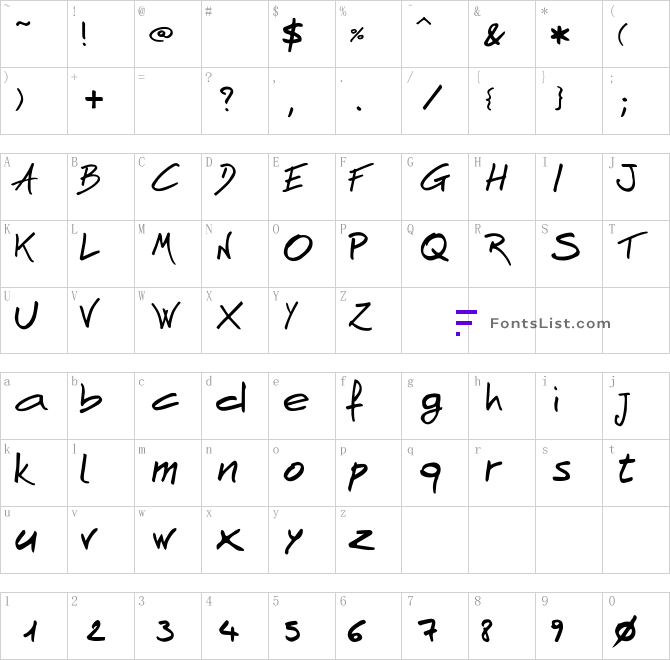
- Font Name:AndNow Hand
AndNow-Hand.ttf is a very beautiful artistic font, AndNow-Hand.ttf is widely used in the design and printing of various books and pictures,AndNow-Hand.ttf has a strong visual impact,AndNow-Hand.ttf is a commonly used font in newspapers, magazines and books, and is used in posters, e-commerce Poster design, store design, logo design, font design and other fields.AndNow-Hand.